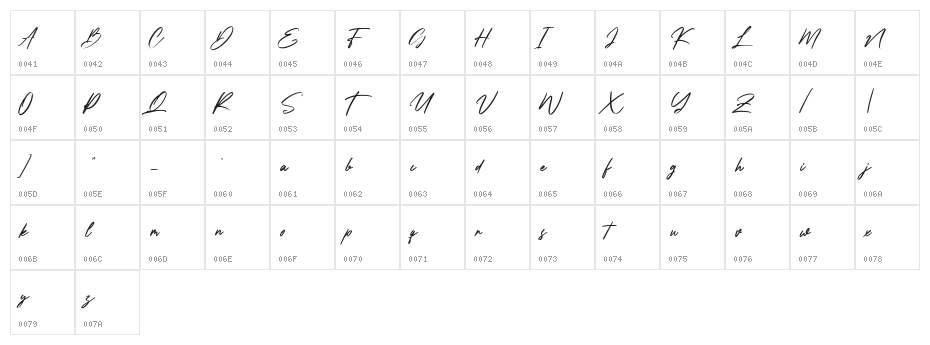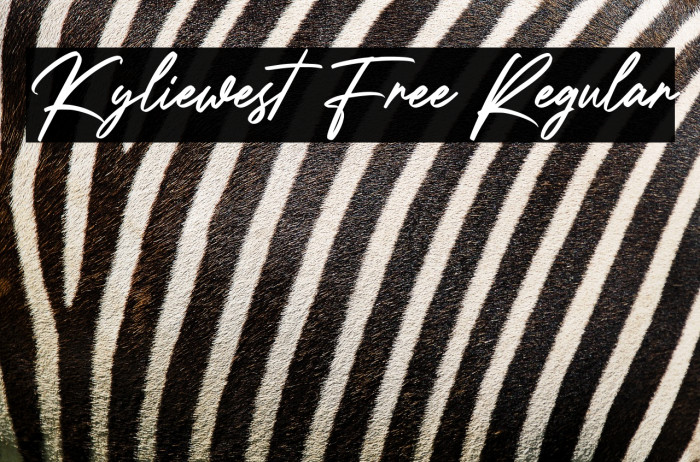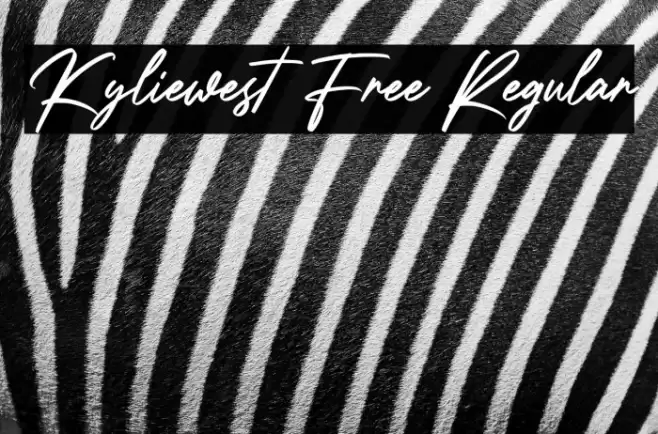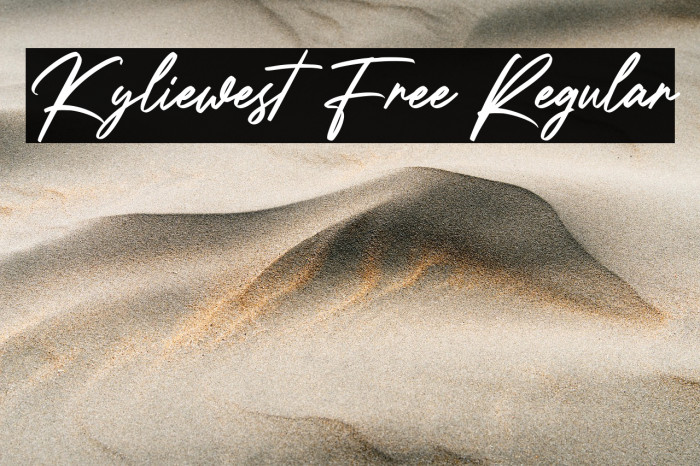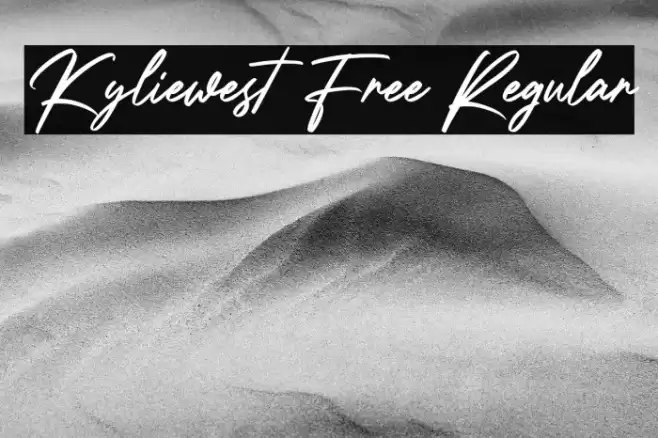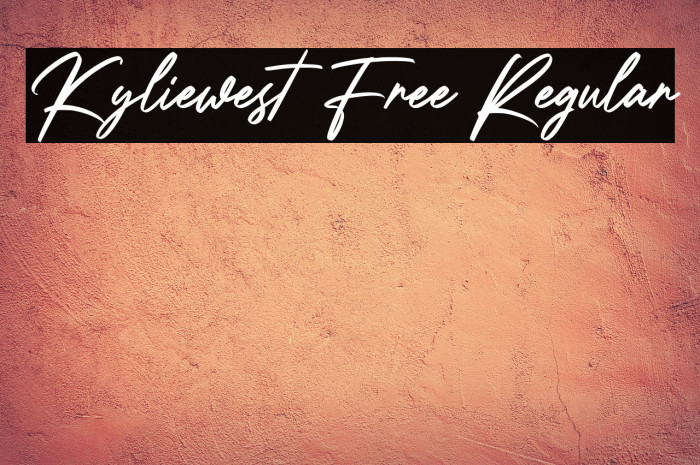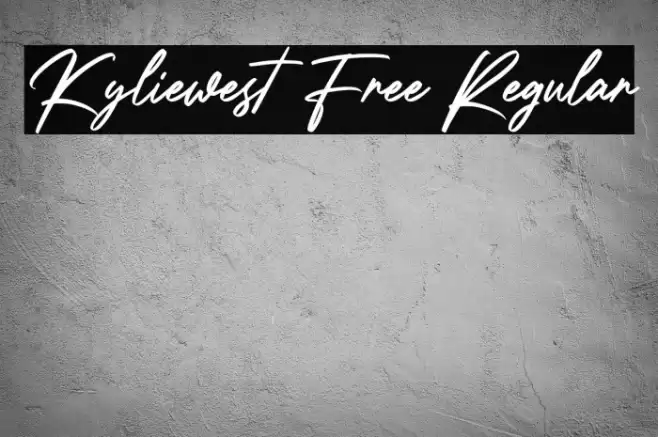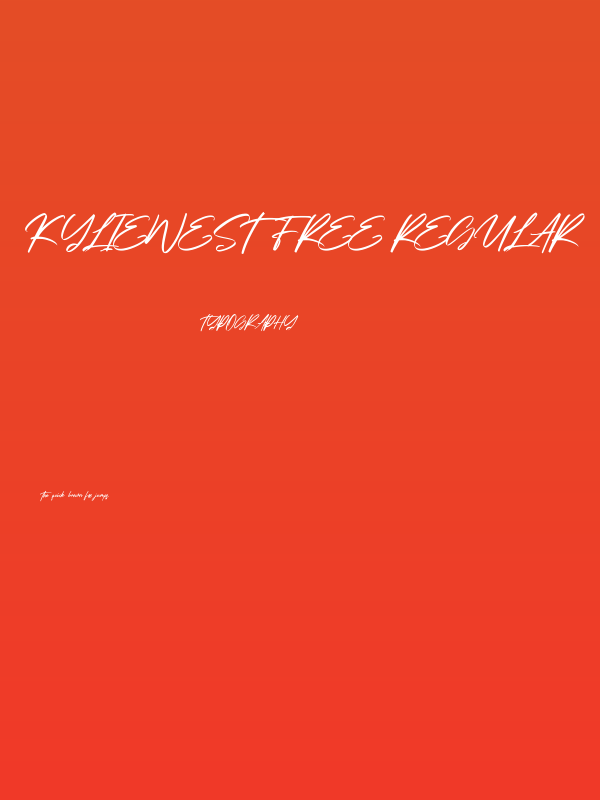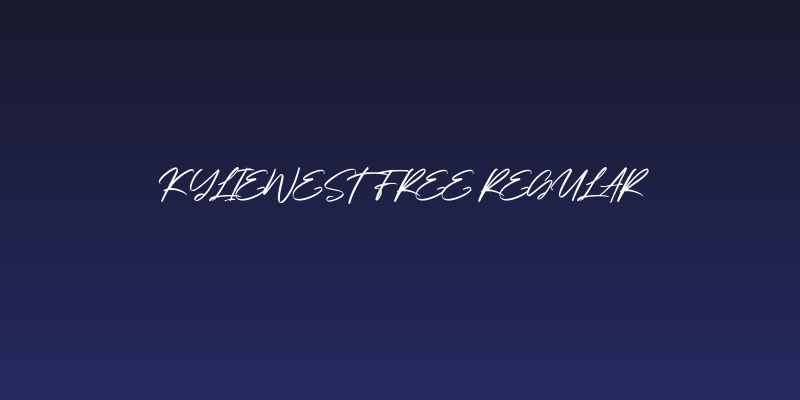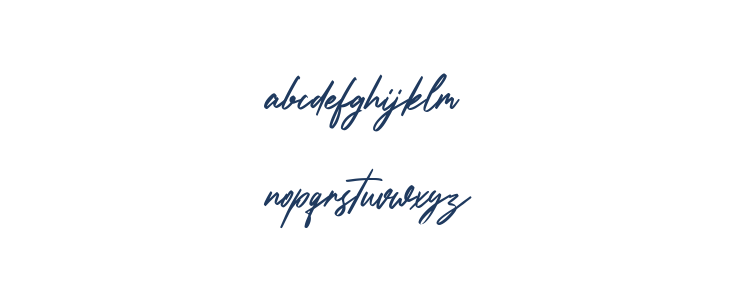
Kyliewest Free Regular Font
Kyliewest Free Regular Description
This font exudes a dynamic and energetic style, characterized by its fluid, cursive script that mimics natural handwriting. The letters are elegantly connected, with a noticeable slant that adds a sense of motion and liveliness. The strokes are bold and confident, with varying thickness that gives it a handcrafted feel. The uppercase letters are particularly striking, with sweeping curves and loops that enhance its decorative appeal. The lowercase letters maintain a consistent flow, complementing the uppercase with their graceful and slightly whimsical appearance. This font is perfect for projects that require a personal touch or a creative flair.